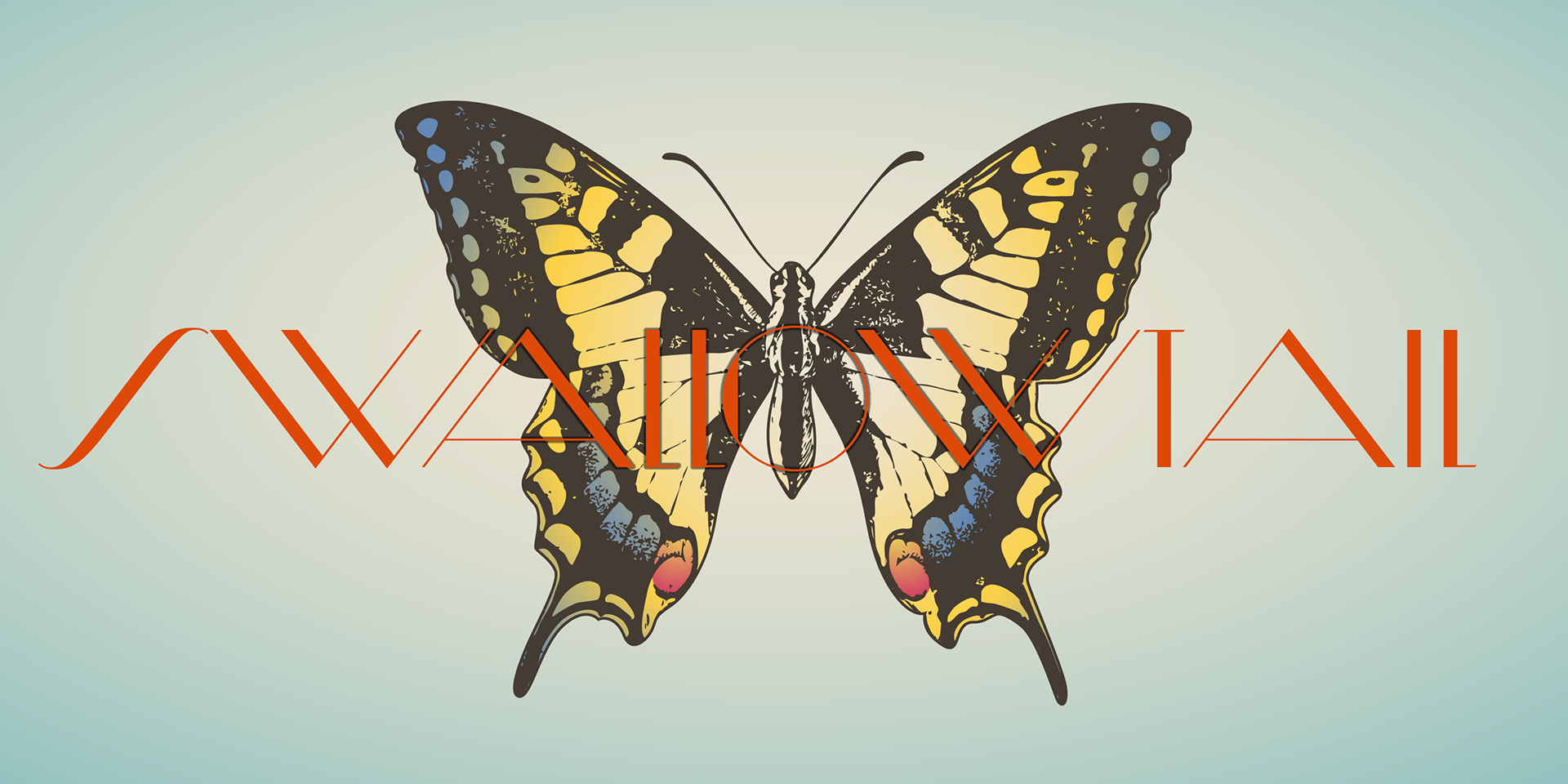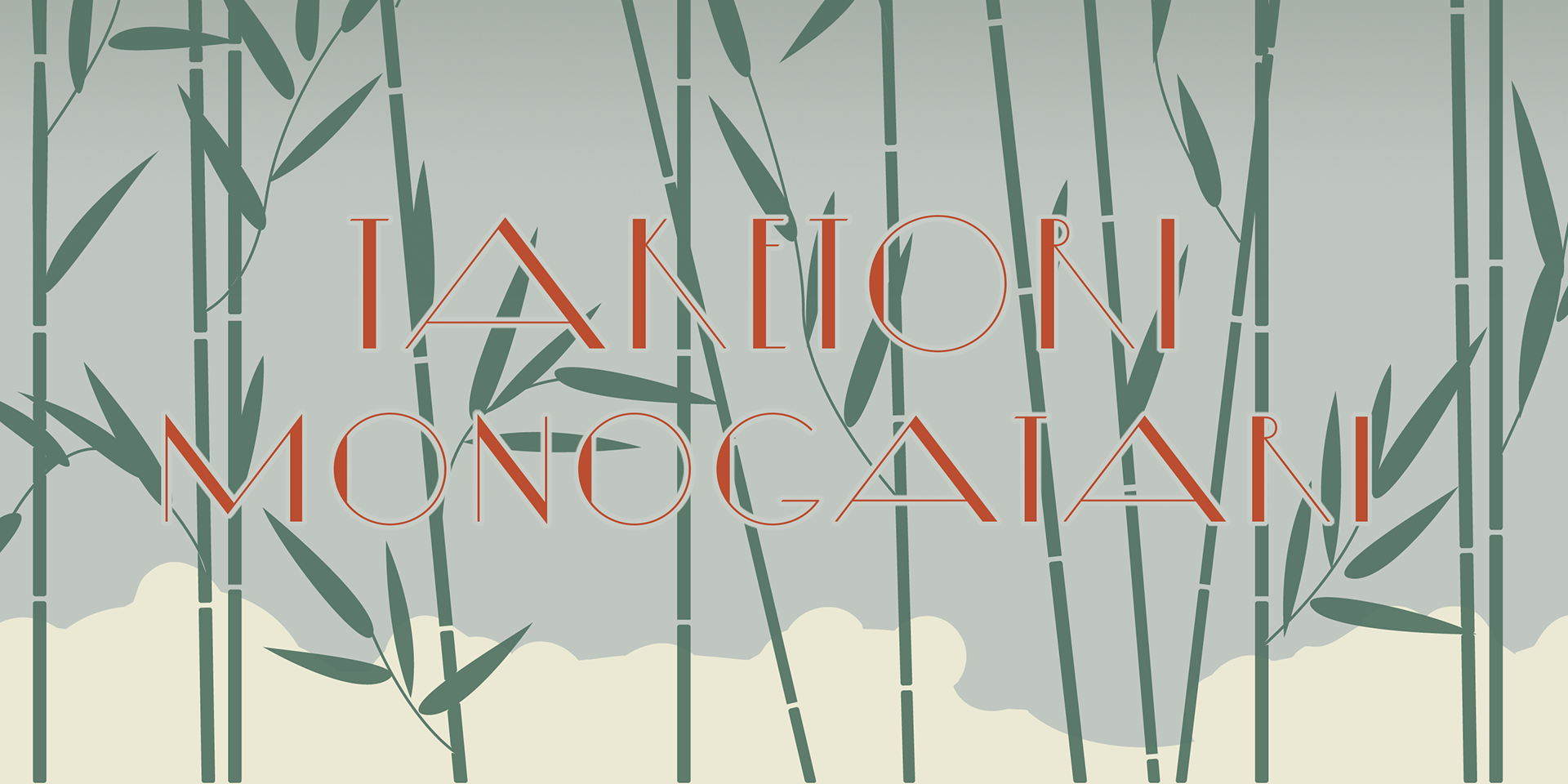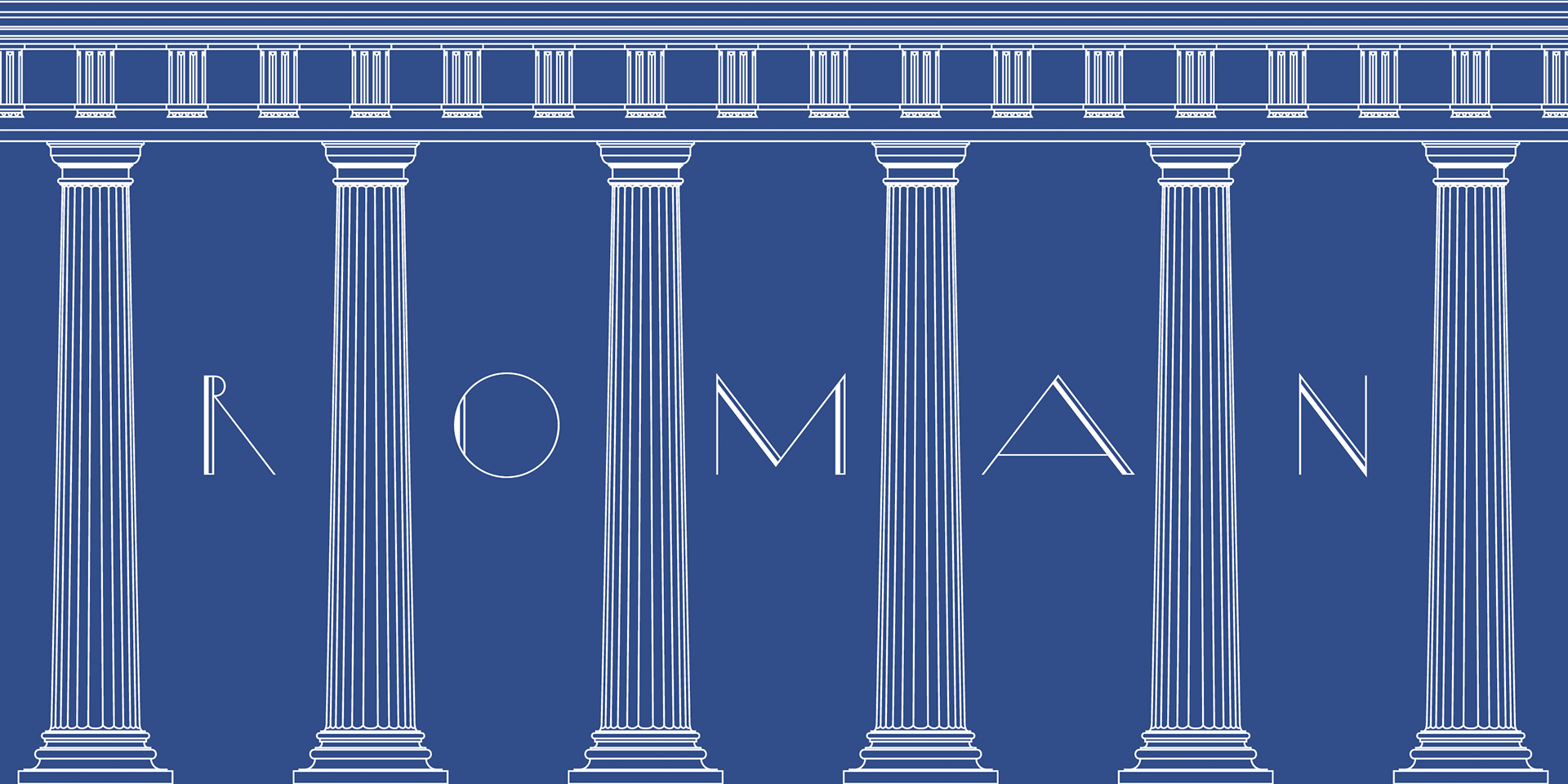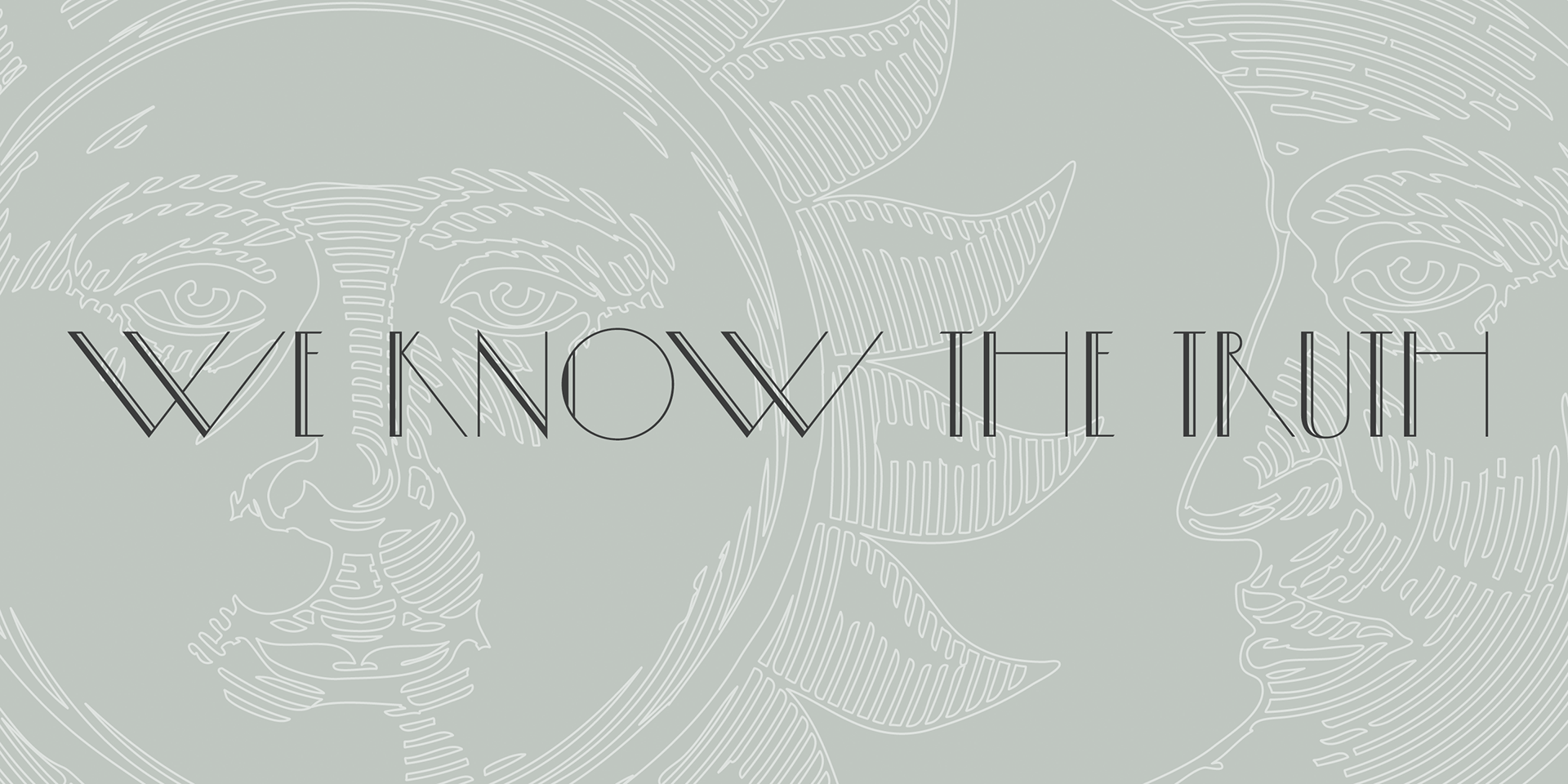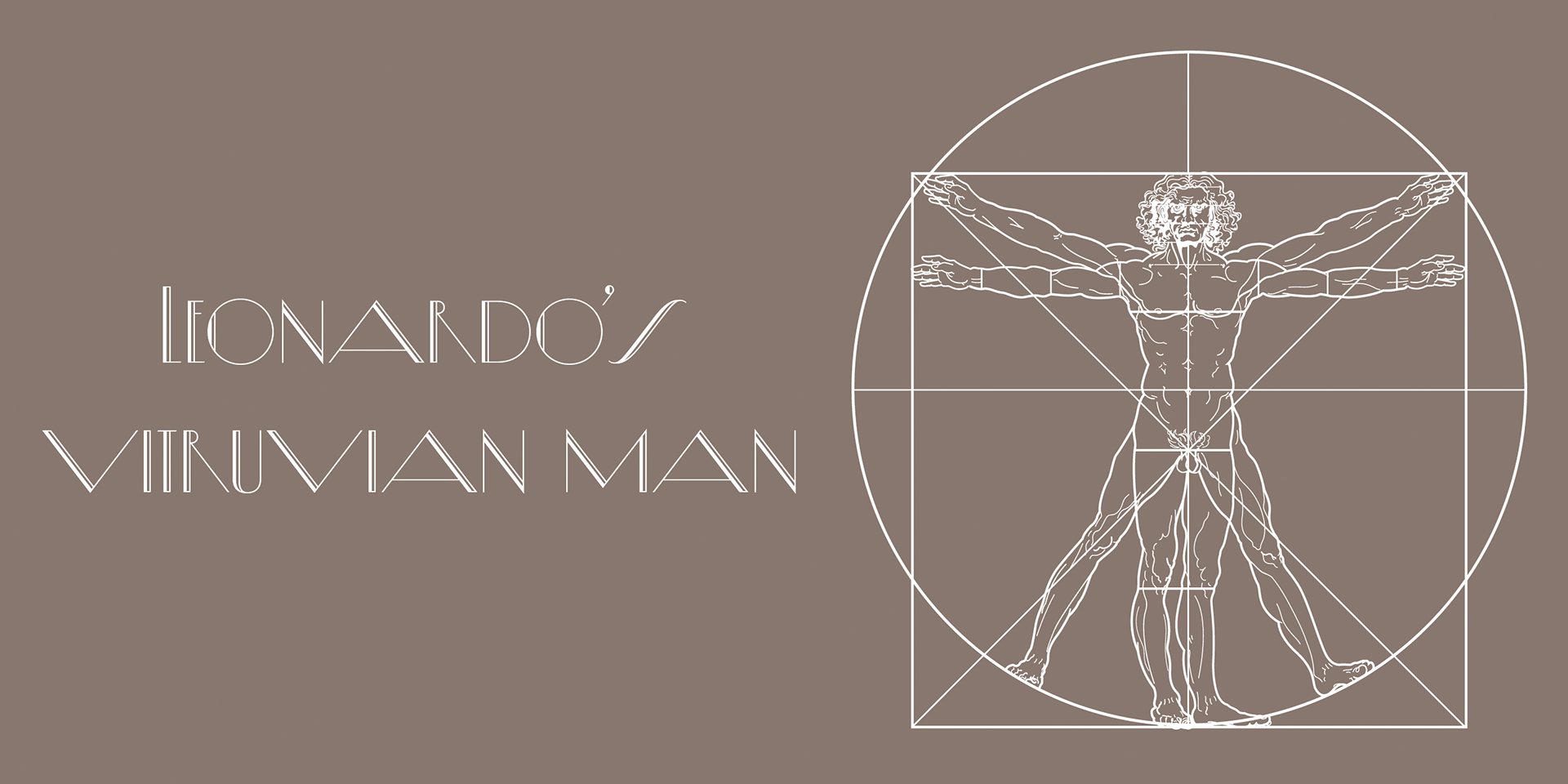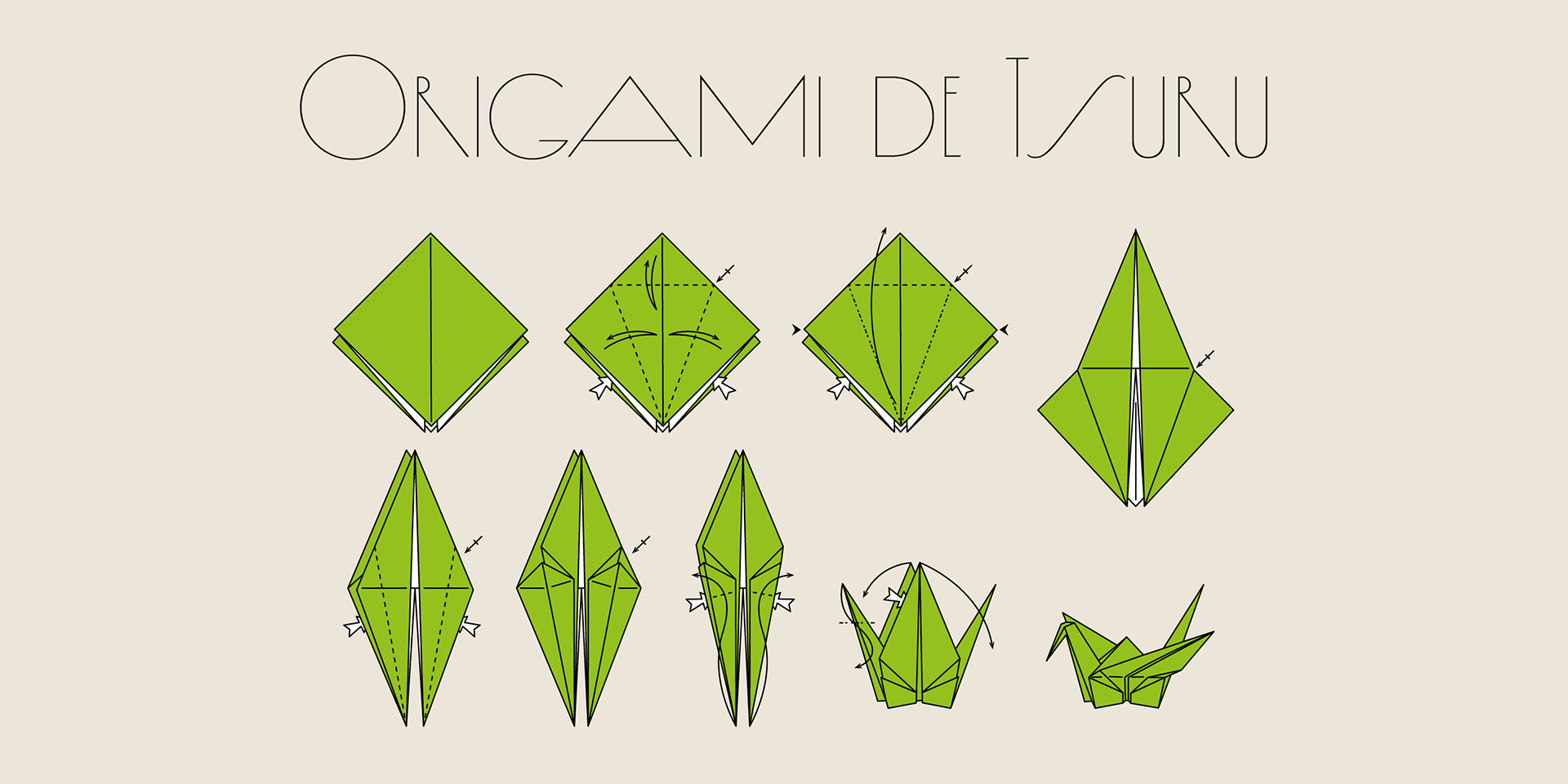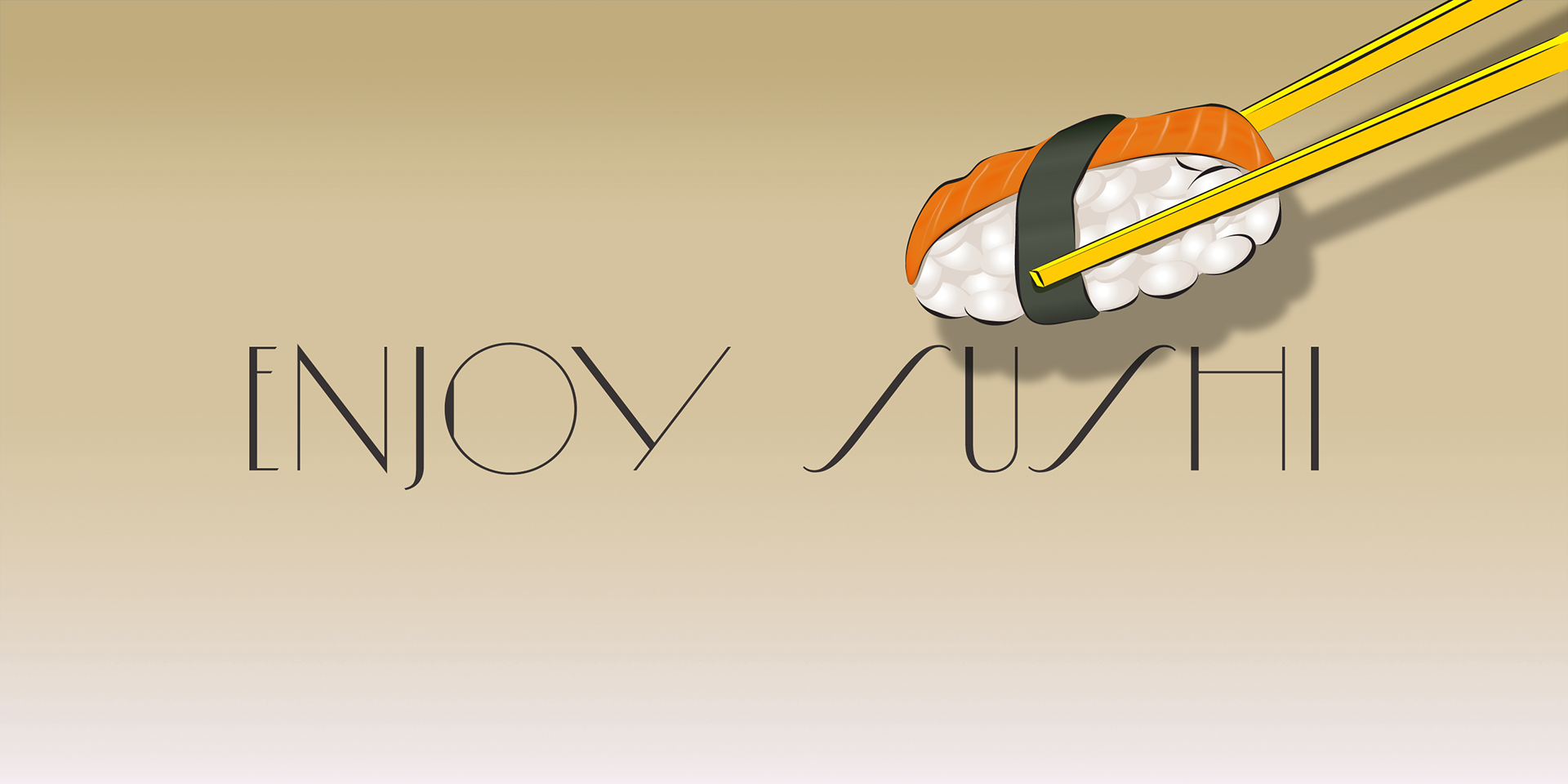
Diamond Ring
Diamond Ring is an Art Deco–inspired font drawing influence from Japanese design seen in cosmetic packaging and posters from the late 19th to early 20th century.
Its most distinctive feature is the use of uniform diagonal strokes—all diagonals share the same precise angle, creating a sense of consistency and rhythm.
This unique design element gives the typeface a radiant, geometric elegance, reminiscent of a diamond ring shimmering during a total solar eclipse.